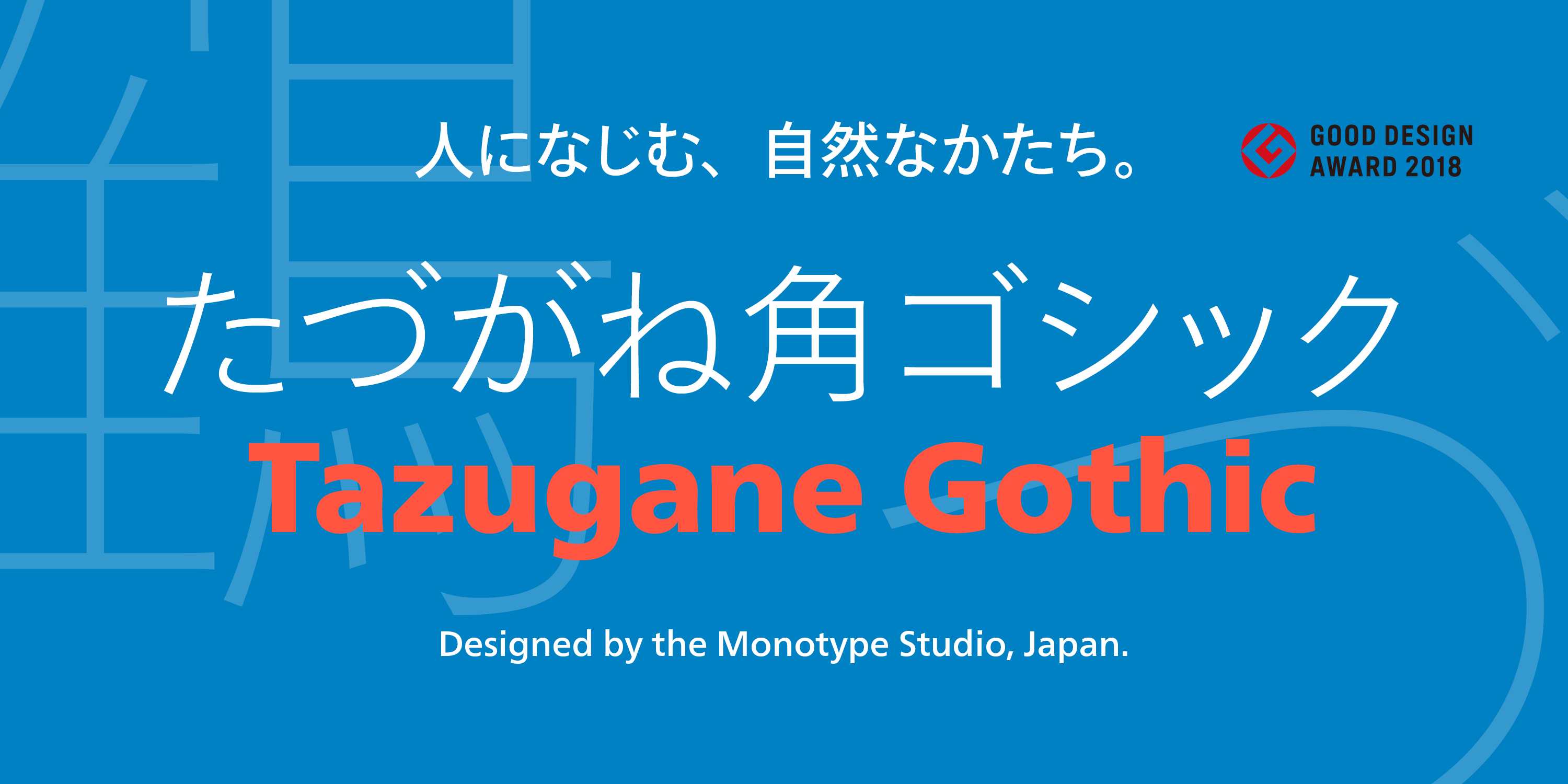
Tazugane Gothic Font Free Download is a modern and elegant sans-serif typeface designed with clarity and versatility in mind. With clean lines and a balanced structure, this font is perfect for branding, logos, web design, editorial layouts, and signage. Tazugane Gothic Font combines a contemporary, geometric feel with excellent legibility, making it suitable for both print and digital applications.
With Tazugane Gothic Font Free Download, you’ll receive a complete set of uppercase letters, lowercase, numbers, and essential punctuation, offering flexibility for various design projects. Whether you're creating a sleek corporate identity, developing marketing materials, or designing a modern website, this font ensures your projects stand out with a refined, professional look.
Enhance your creative projects with Tazugane Gothic Font Free Download. Its modern, clean design makes it an excellent choice for projects that need a professional, contemporary touch.